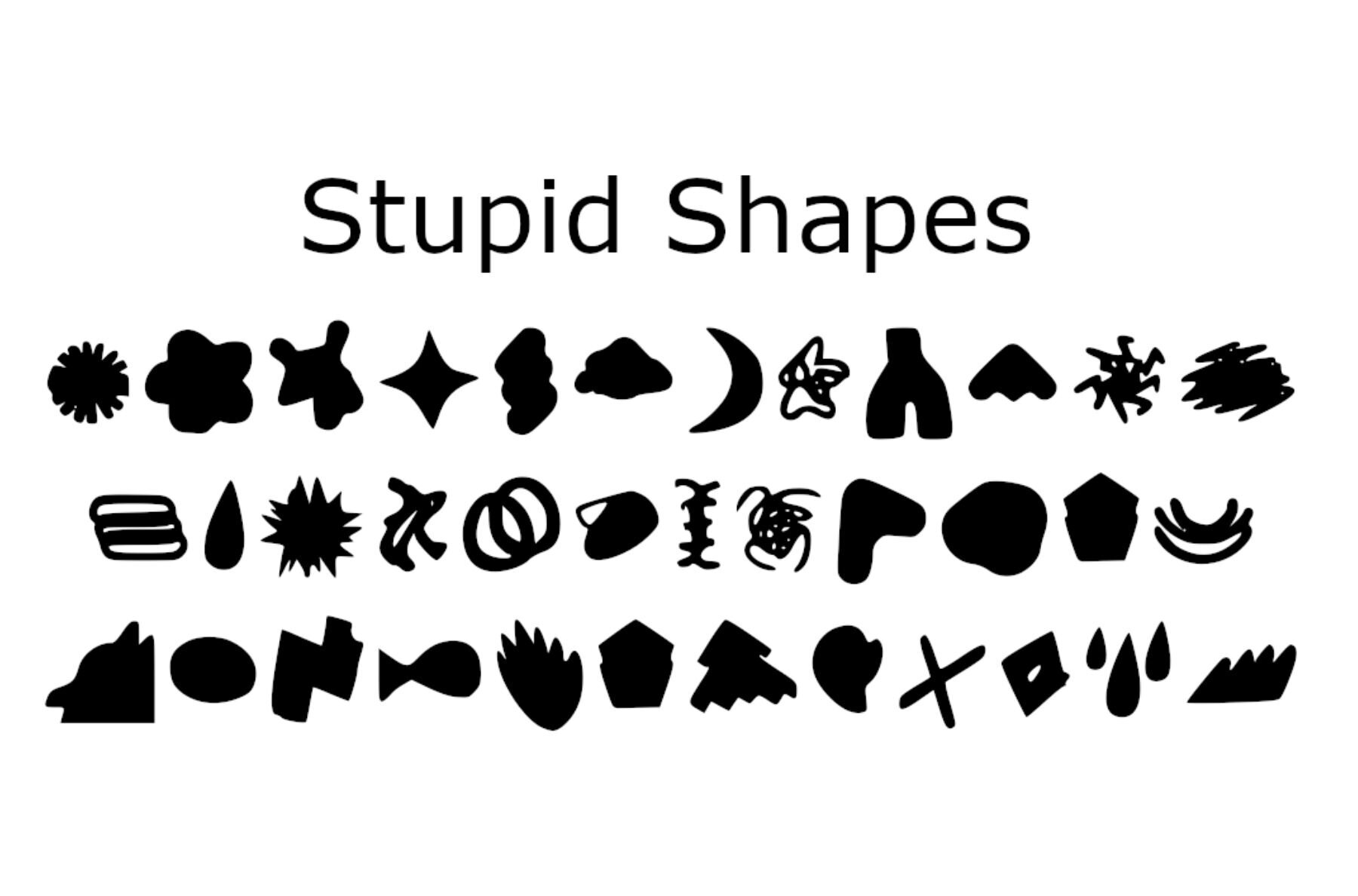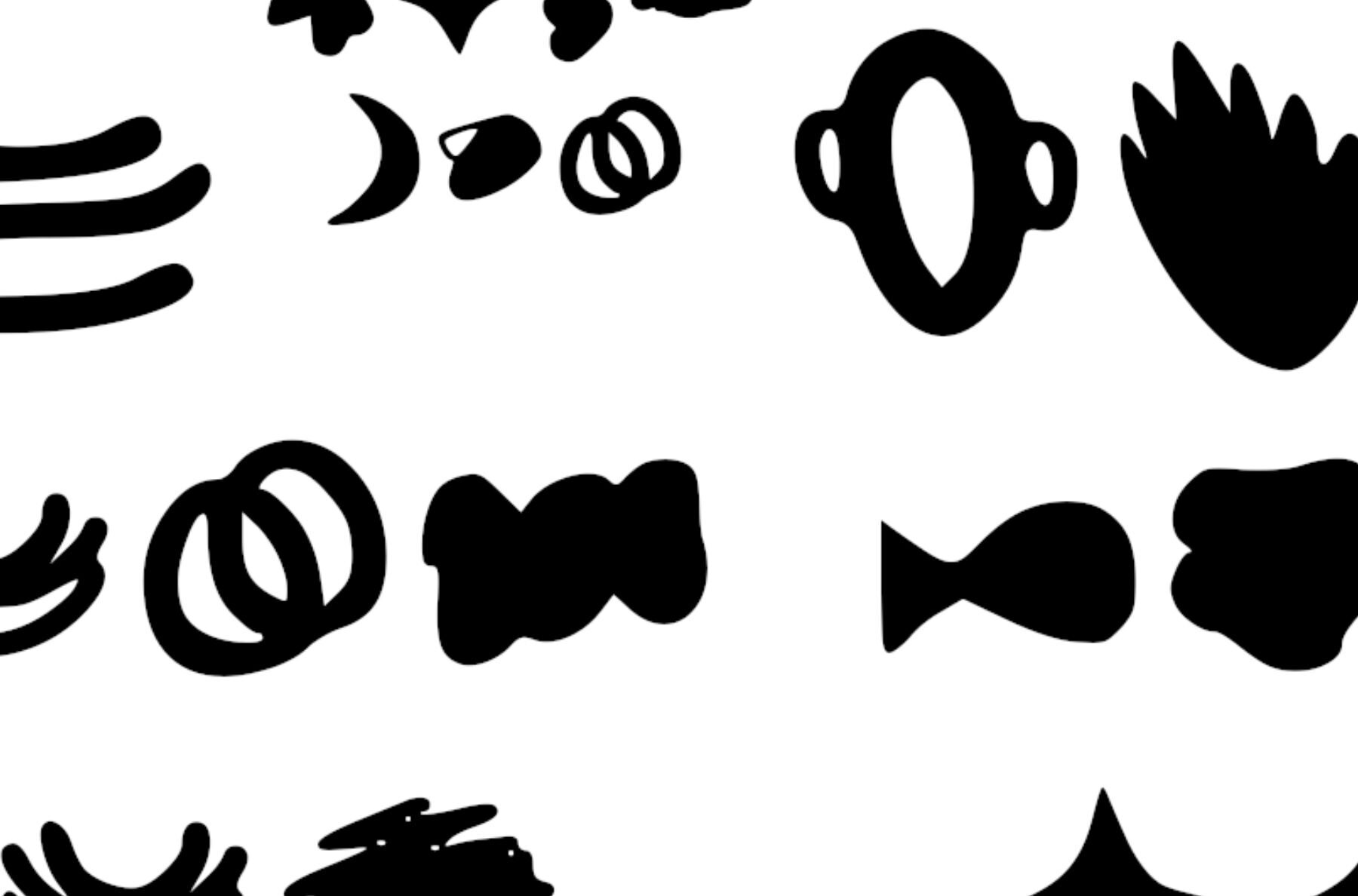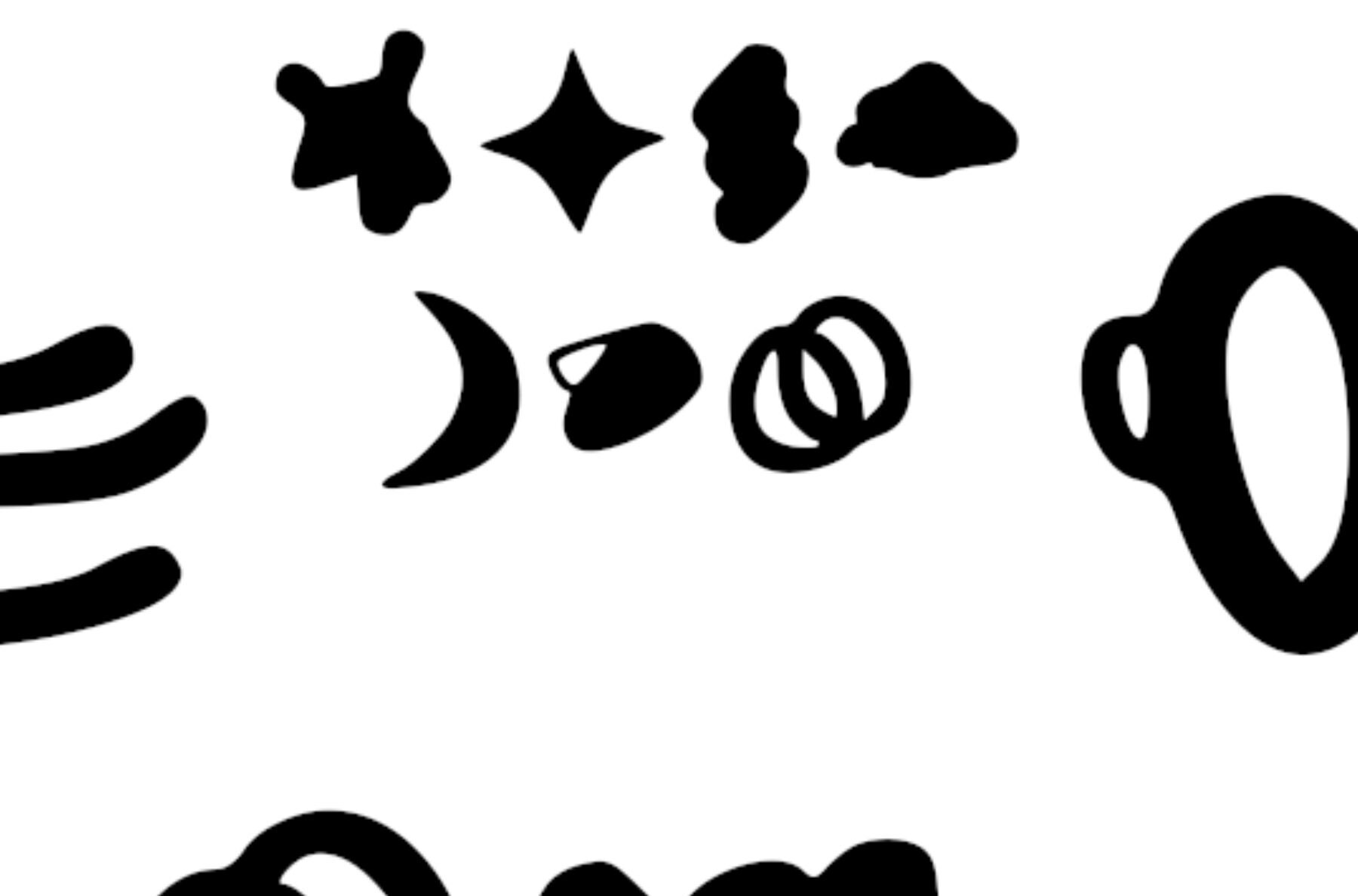
Stupid Shapes Font
Stupid Shapes
Unleash your creativity with the Stupid Shapes collection by Graphics Bam. Featuring 81 odd, strange, and fun shapes, this unique set adds a dash of whimsy to any design or craft project. From digital designs to physical crafts, these compelling shapes offer endless possibilities.Stupid Shapes Collection